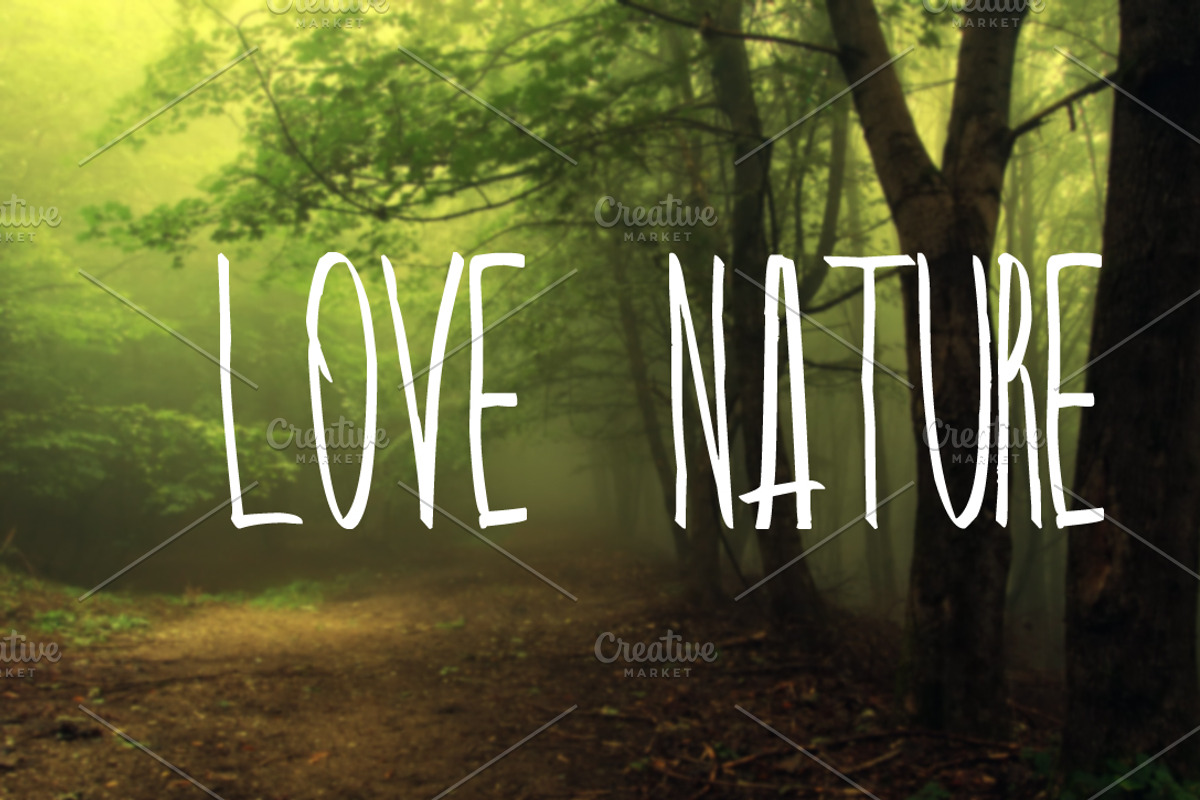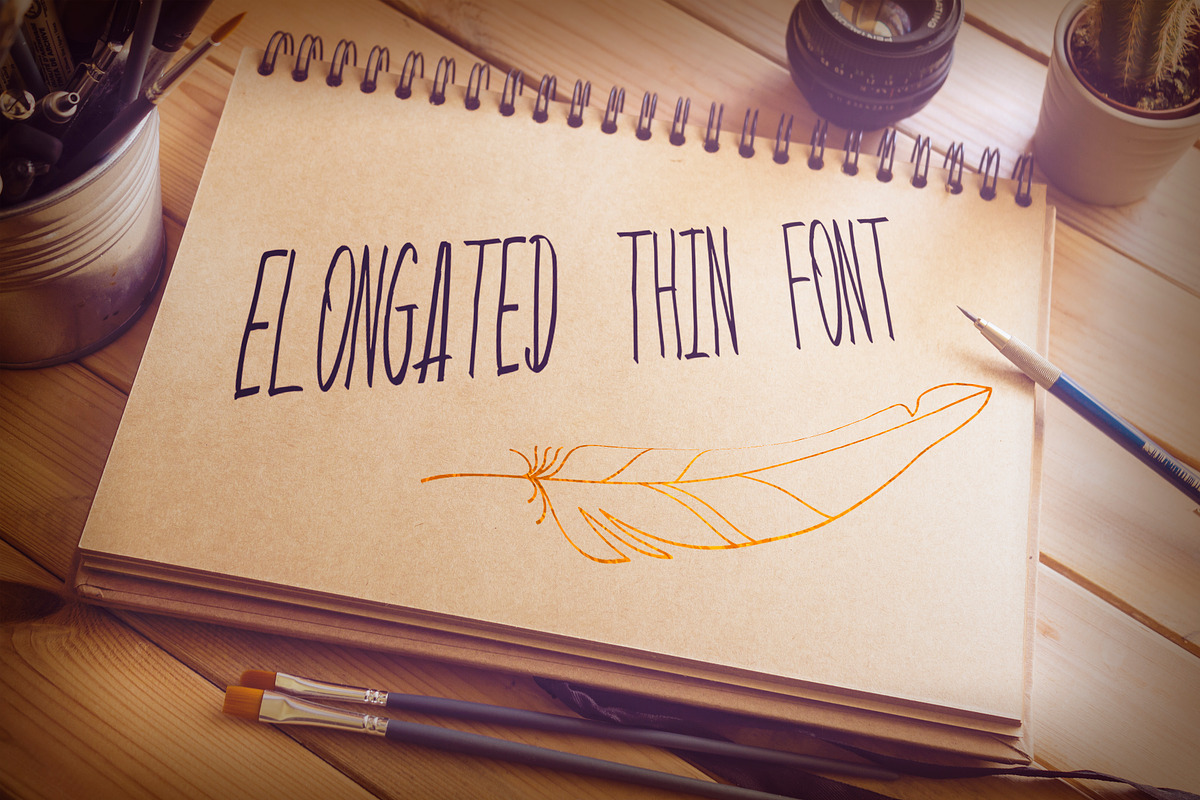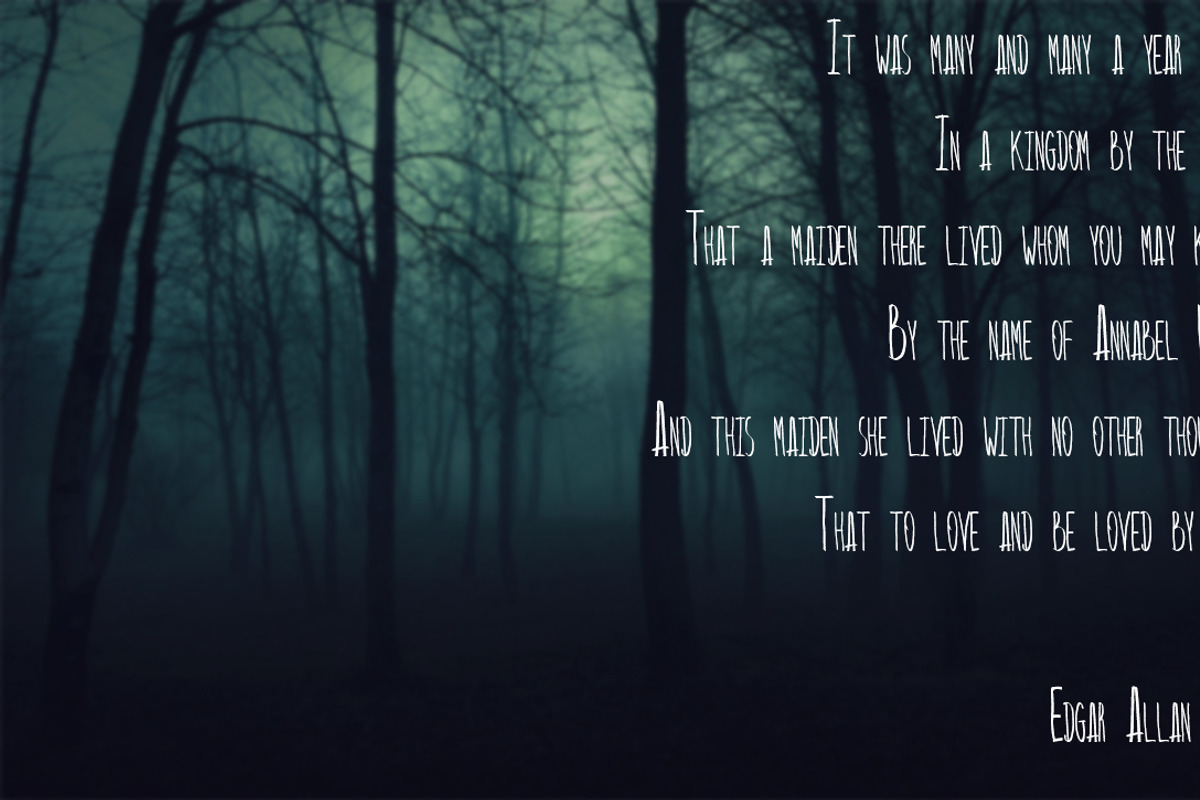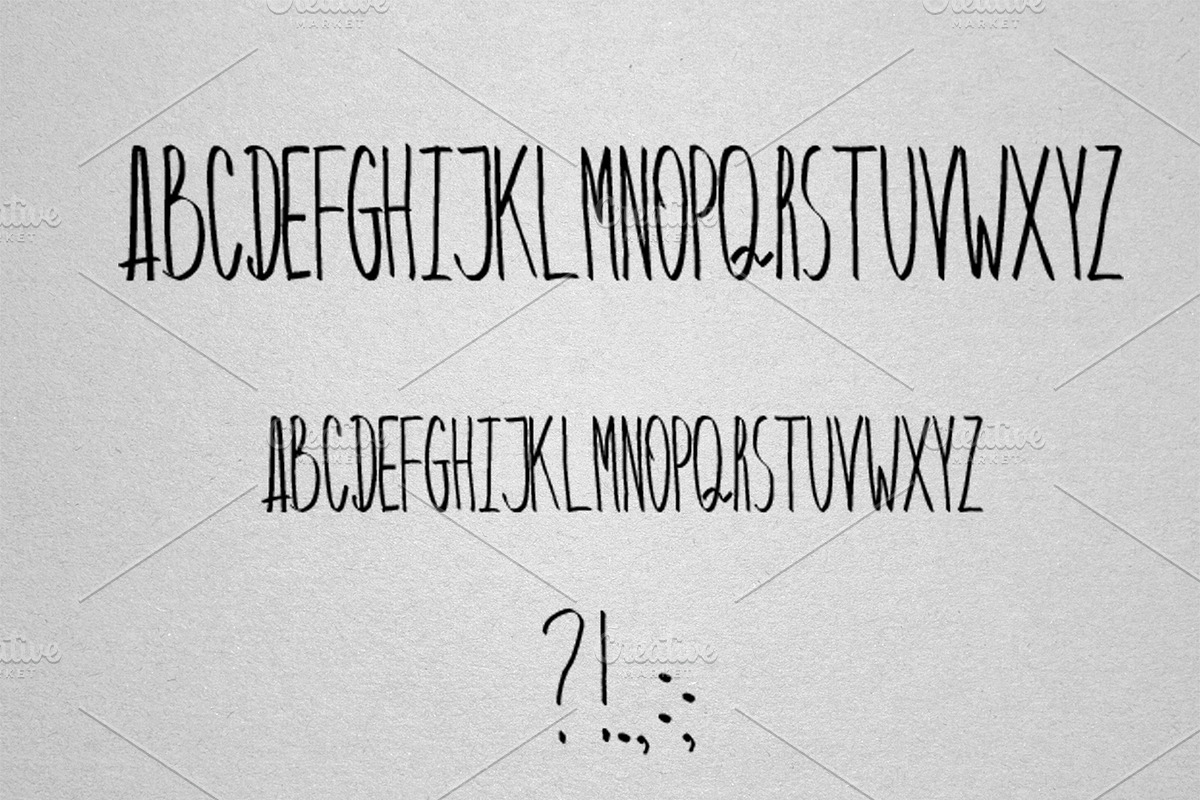
elongated thin font
elongated thin font by Vavavka is a font selected for branding, posters, packaging, typography.
- It includes all the letters of the Latin alphabet, question mark, exclamation mark, comma, dot.
Why elongated thin font is worth a look
elongated thin font by Vavavka fits naturally into Branding, posters, packaging, typography.